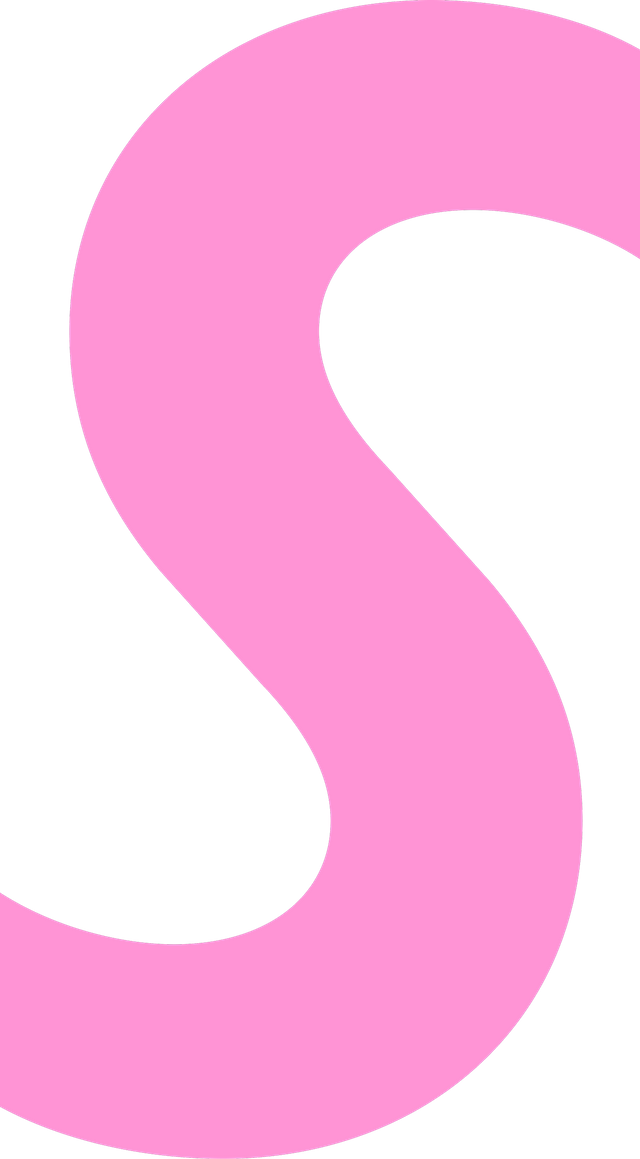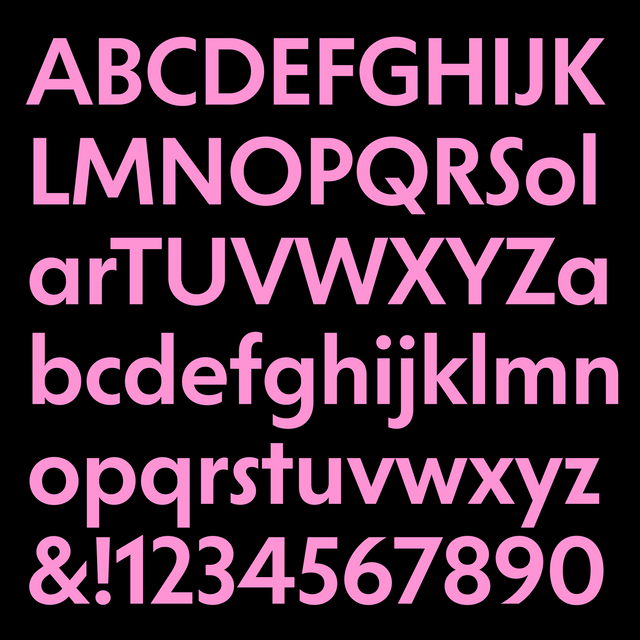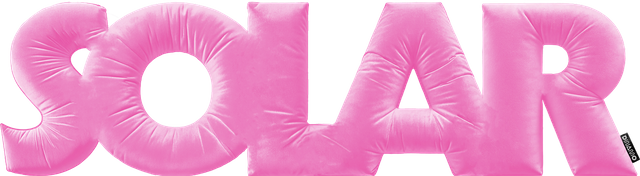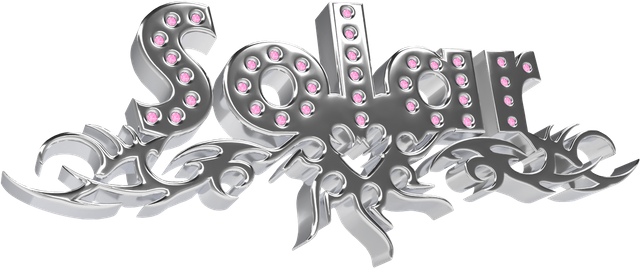
It’s 2025 and Solar Girl has entered the scene —
New year, new font :^) ABC Solar is a highly customizable geometric sans with a large weight spectrum and matching italics. You can change how it looks by selecting from a huge range of alternates (like a make-up kit) — and by choosing between straight or angled cuts.
Bye bye Snail/Demure/Tomato/Rat/Lazy Girl and friends… it’s 2025 and Solar Girl has entered the scene. And she really loves the fonts!
It’s giving Kabel, Vogue, Metro No. 2, Johnston, and Erbar-Grotesque plus Futura of course, but if I’m calling it what it is, Solar lives in—no, she owns—that space between Remix and Homage of all the above—with a dash of type designer Renan Rosatti’s own poetic license thrown in.
Solar is essentially a geometric sans for text and display; its multiple alternates can be picked from and mixed together, with 18 stylistic sets referencing various geometric and humanistic typefaces from the early 20th century.
The Solar subfamily is made for legibility and functionality, while Solar Display has been imagined for tight and punchy headlines.
Solar has eight weights, which span from the elegant Extralight through to Regular and Bold to punchy Ultra. Each of the weights has an italic companion, adding up to a total of 16 styles. And everything is variable, of course.
The Solar Display subfamily covers the same weights and is ideal for impactful headlines due to its enlarged x-height, “tight but not touching” spacing, and generous forms.
One of Solar’s defining characteristics is its round shapes, like its almost circular capital O. Some of its letters are simple in their construction—think single-storey a and cross-like t. But the open counters and straight terminals in characters like c and s break from this geometry, creating a sense of fluidity. You can’t pin Solar down!!
Solar tan energy in the making (is she a graphic designer?)
The narrow and forward-leaning s and S duo are just a lil cat-eye flick away from classic Futura
Solar also has two different options for its end strokes: the standard vertically-cut ones and the alternate angled ones, which are sharper and give a slightly different flavor to the whole thing. This option is available in combination with all the other stylistic sets, and can be accessed in the same way.
My favorite Solar characters are smuggled into the stylistic sets, like the straight-top a, the diamond dots, and the straight-bar Q. Solar has plenty alternates to get lost in, which point to its wide range of different design references.